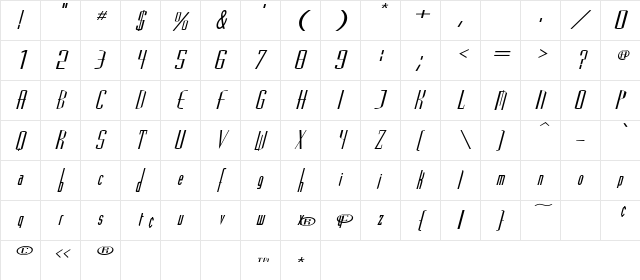
VascoSSK BoldItalic
Design Context for VascoSSK Typeface
VascoSSK is a composed and adaptable typeface that performs quietly and consistently across a wide range of design contexts. The dynamic lean of this cut emphasises speed and emphasis in any layout. Its bold stroke weight gives it real presence on the page.